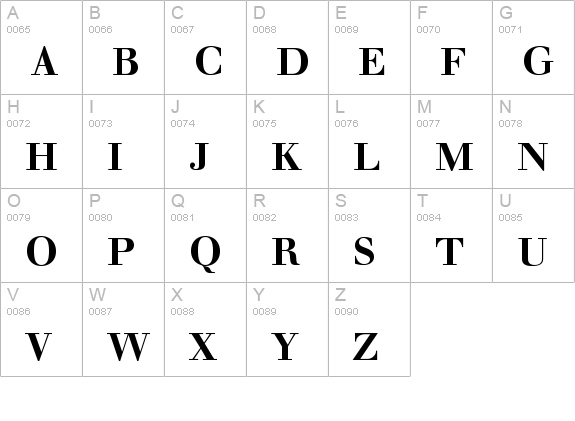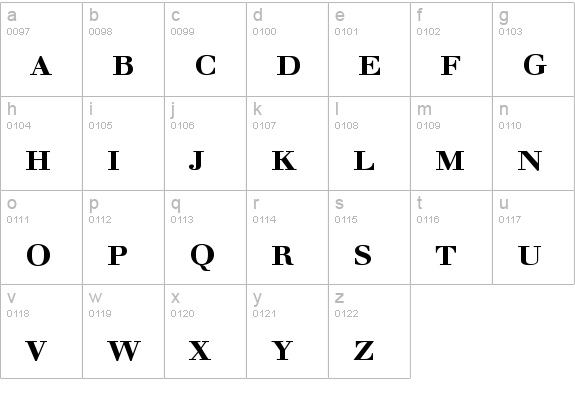
Berthold Walbaum Book Medium SC Font Details
Berthold Walbaum Book Medium SC is a comfortable, highly readable variant in the Berthold typeface family \xE2\x80\x94 well suited to long-form body text, articles, and editorial content.
The Berthold Walbaum Book Medium SC font is a stunning typeface that exudes elegance and sophistication. Its timeless design, inspired by the classic Walbaum typeface, makes it a perfect choice for projects that require a touch of refinement. This font strikes the perfect balance between legibility and style, making it ideal for both body text and display purposes. With its medium weight, it offers a comfortable reading experience while still maintaining a strong presence on the page. The carefully crafted letterforms feature delicate serifs and graceful curves, resulting in a harmonious and balanced overall composition. One of the most remarkable features of the Berthold Walbaum Book Medium SC font is that it is freely available to download at FontsMarket.com. This means that you can easily access this exceptional typeface without any cost, making it an excellent option for designers and typographers on a budget. Whether you are working on a book, magazine, branding, or any other design project, the Berthold Walbaum Book Medium SC font is sure to elevate your work to new heights. Its versatility and timeless appeal make it a versatile choice that can enhance any design concept. Overall, the Berthold Walbaum Book Medium SC font is a true gem in the world of typefaces. Its exceptional design, legibility, and the fact that it is freely available to download at FontsMarket.com make it a must-have for any designer or typographer looking to add a touch of sophistication to their projects.